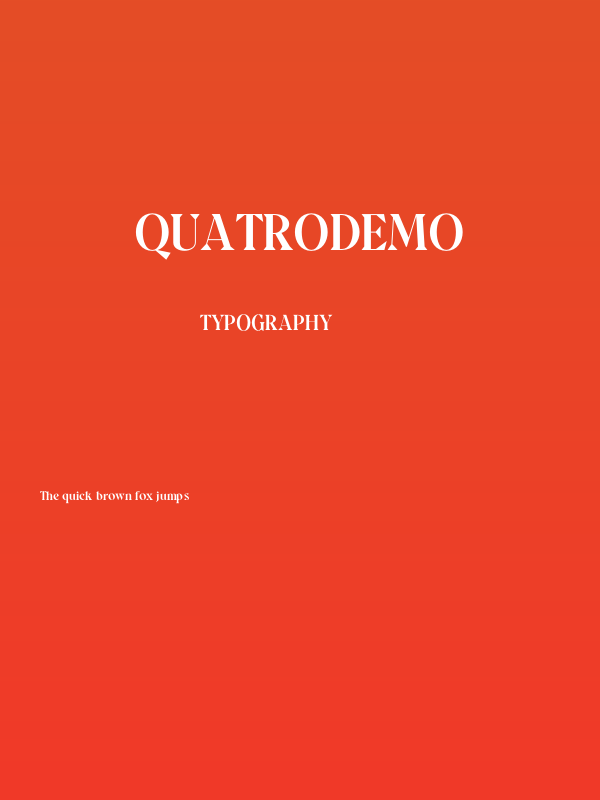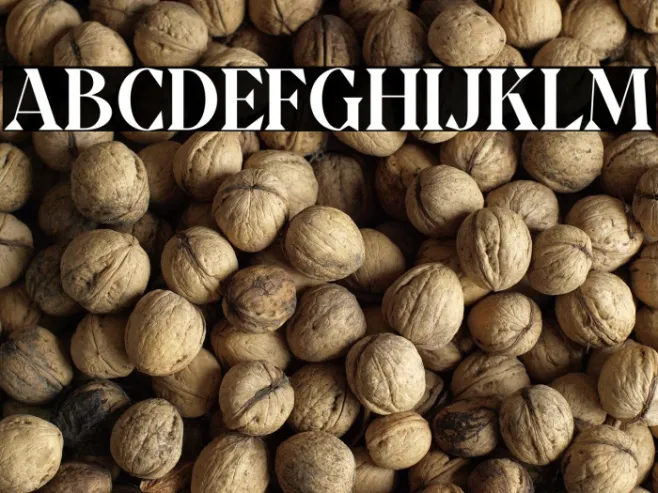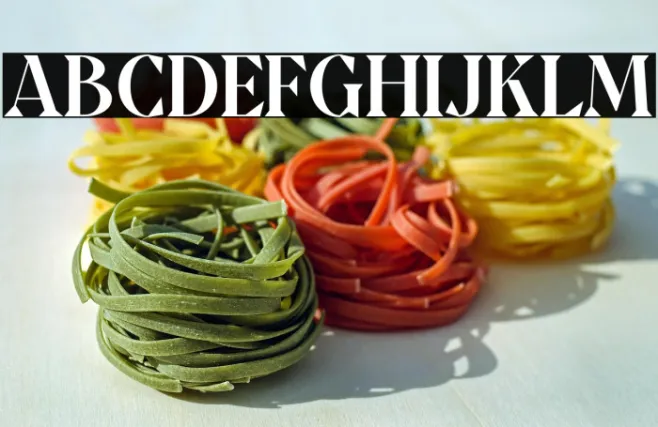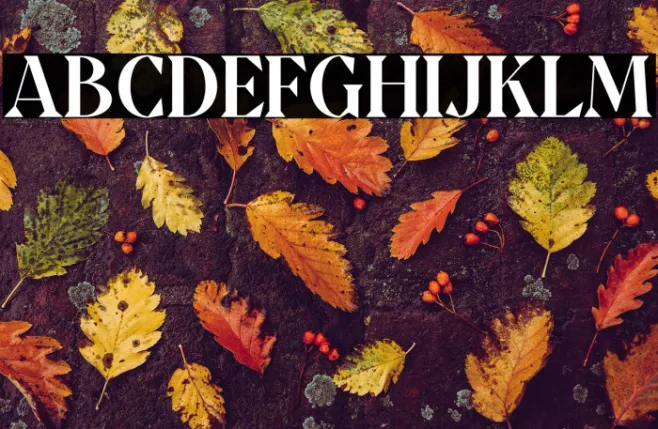
QuatroDEMO Font
QuatroDEMO Description
This font features a bold and striking serif design with high contrast between thick and thin strokes, giving it a dramatic and elegant appearance. The uppercase letters are particularly distinctive, with sharp, angular serifs that add a sense of sophistication and authority. The lowercase letters maintain a consistent style, with smooth curves and sharp edges that create a harmonious balance. The numerals and special characters are equally bold, ensuring readability and visual impact. This font's overall style is both classic and modern, making it versatile for various design applications.
| Overall Style | Classic, Modern |
| Use Case | Headlines, Logos, Editorial design |
| Proposed Projects | Ideal for luxury branding, editorial design, book covers, and high-end product packaging. |